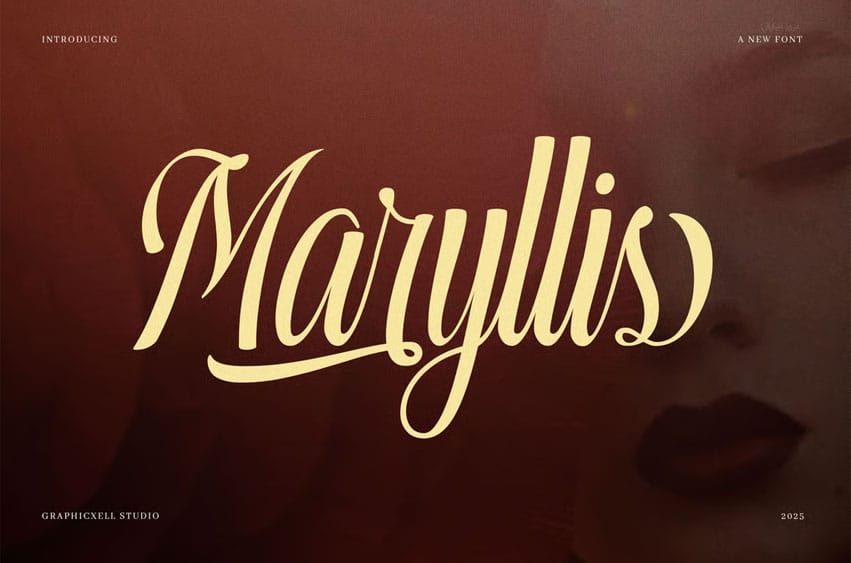
Maryllis Font is a modern, elegant script font that radiates sophistication, balance, and confidence. Every curve flows with grace, while each letter connects smoothly, giving your words rhythm and beauty. Because of its timeless design, this typeface elevates both classic and contemporary projects.
It captures the charm of hand-written calligraphy and transforms it into a professional, high-end font. The result feels soft yet bold—ideal for fashion brands, editorial layouts, and beauty product designs. Moreover, its gentle contrast and luxurious strokes make every project feel more polished and expressive.
Designers choose Maryllis because it performs beautifully across every medium. It adds an effortless sense of refinement to packaging, invitations, and brand identities. Each glyph moves with purpose, helping your message appear elegant and easy to read.
Maryllis is ideal for:
- Fashion magazines and editorials
- Wedding invitations and stationery
- Beauty and perfume branding
- Boutique packaging and luxury labels
- Signature logos and creative ads
Most importantly, Maryllis inspires emotion and elegance. It encourages creativity, communicates confidence, and turns plain words into striking visuals. Therefore, if you seek a script font that blends romance with modernity, Maryllis is your ideal choice.
Bring beauty and expression to your work with this timeless script font—crafted for designers who value detail, artistry, and distinction.